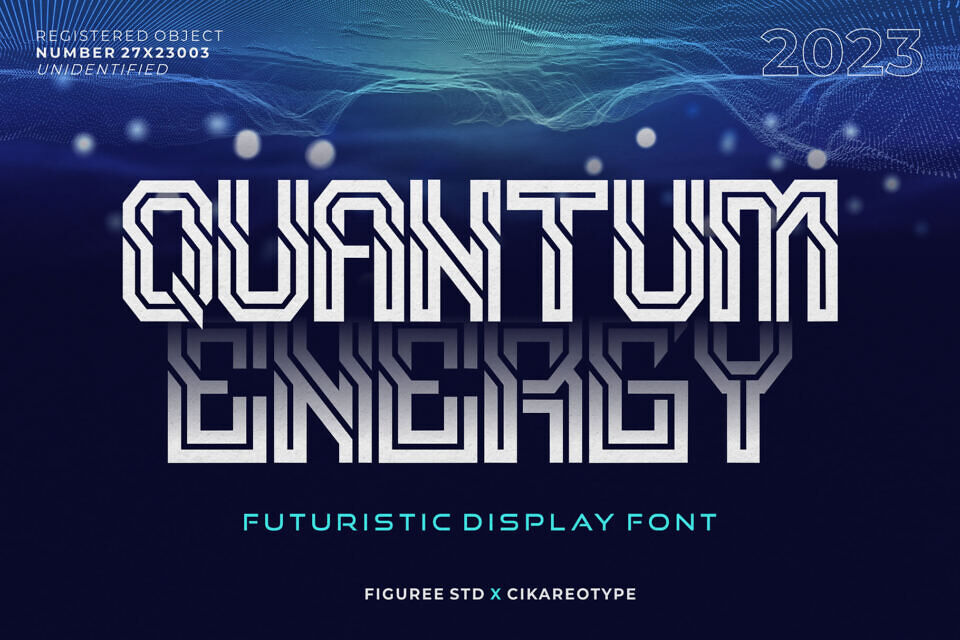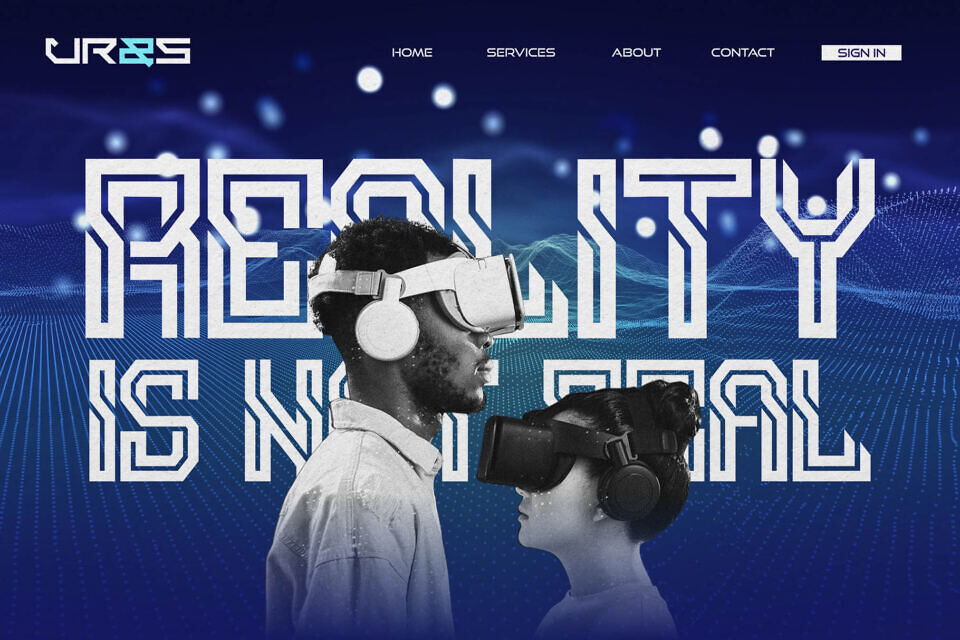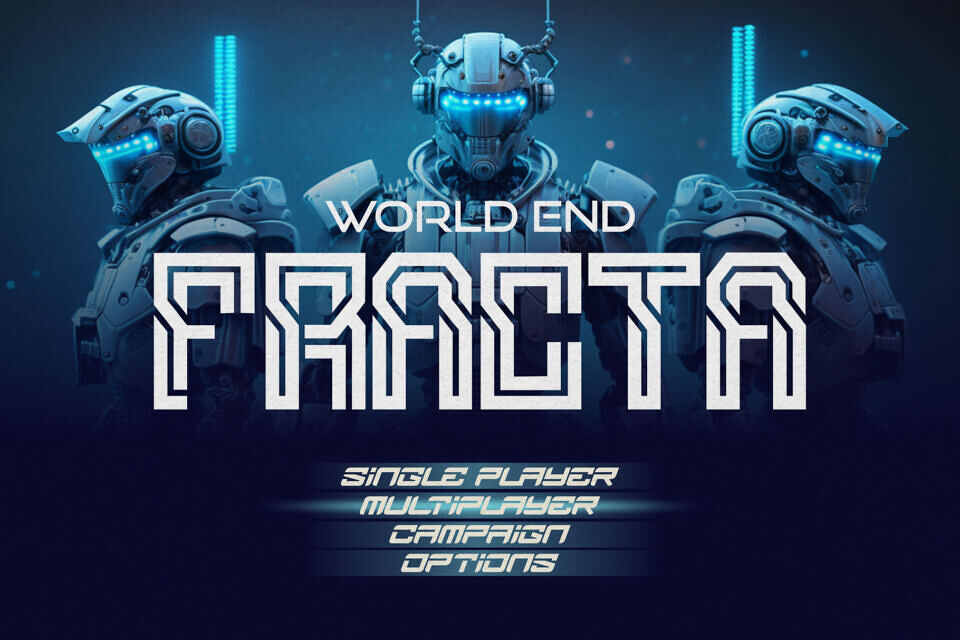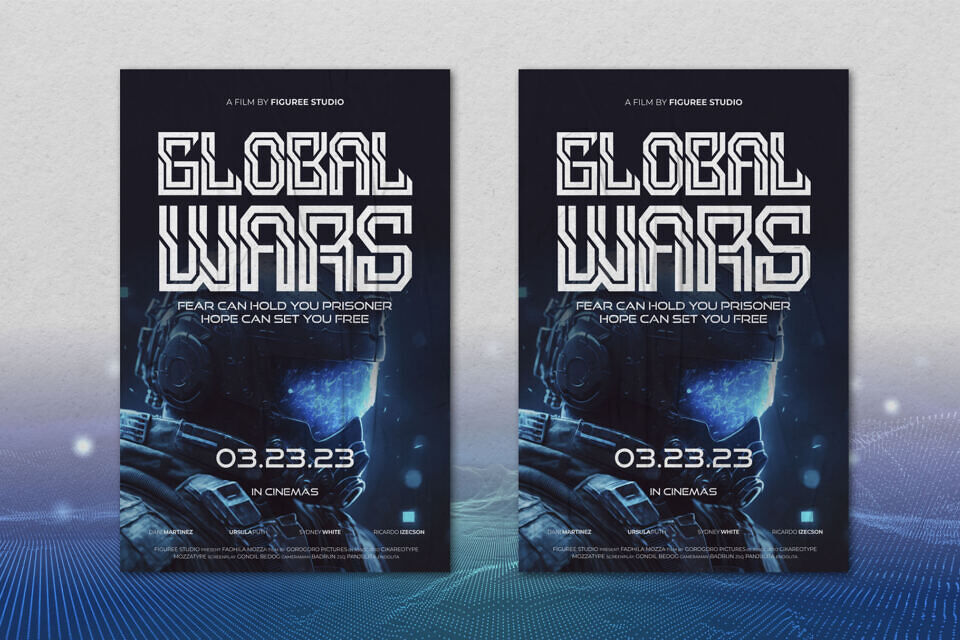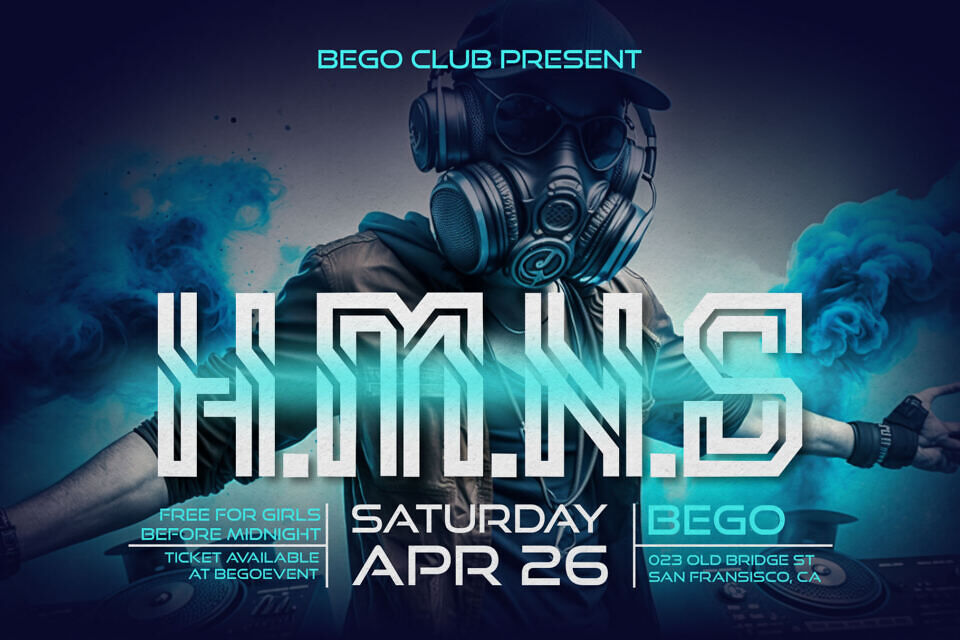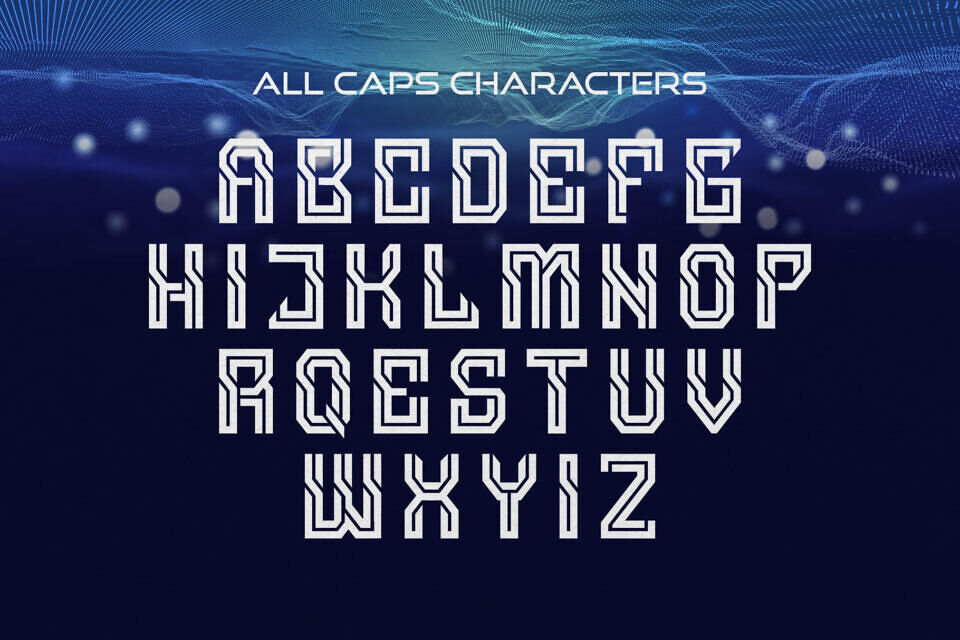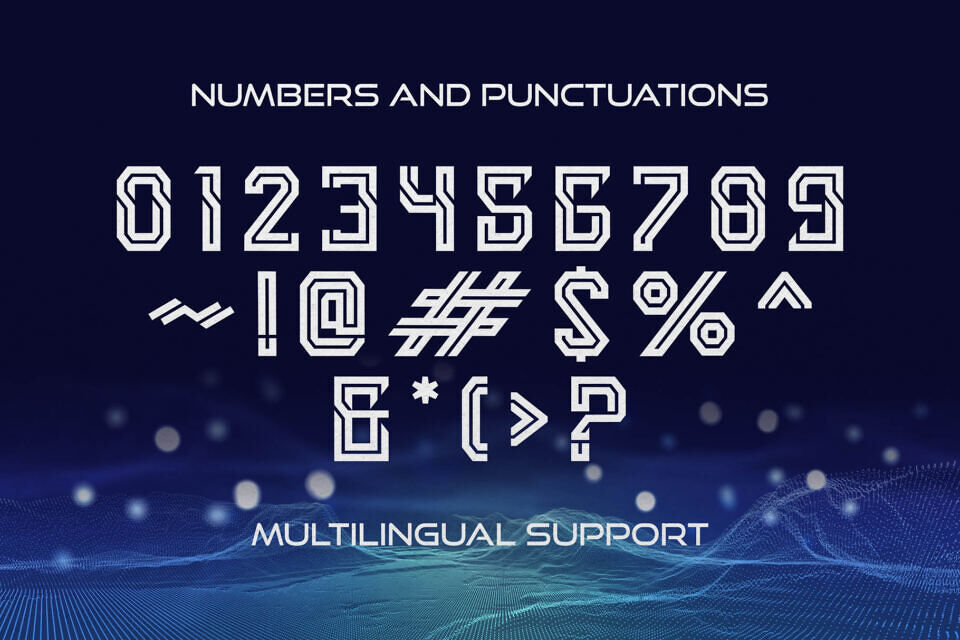
Quantum Energy Font
Introducing Quantum Energy, the font that encapsulates the essence of tomorrow’s technology. With its sleek, geometric design and intricate details, Quantum Energy is the perfect choice for any project that demands a futuristic and dynamic touch.
This unique display font is crafted with a futuristic approach, featuring sharp angles and curves that add depth and dimension to your designs. Whether you’re working on a cutting-edge website, a sleek user interface, or a tech-inspired poster, Quantum Energy will make your text pop and capture your audience’s attention.